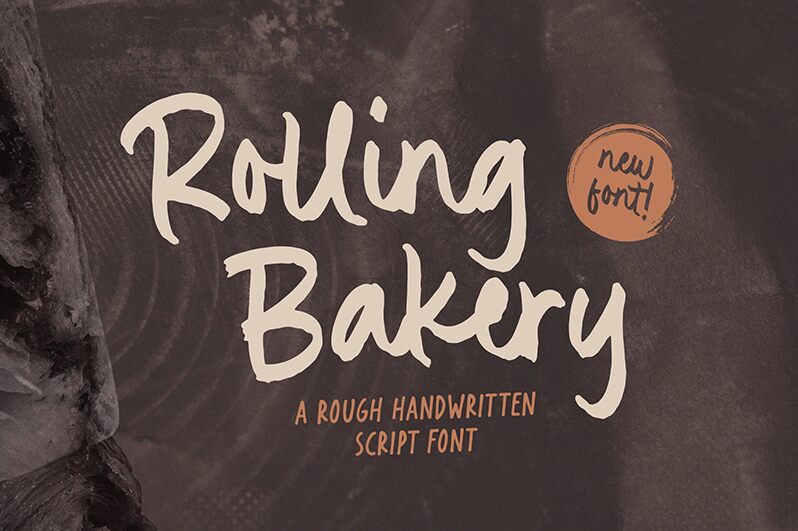
Rolling Bakery
Rolling Bakery font by Timur Type is a free brush font with a casual, handwritten style. Its energetic flow and expressive personality add an organic feel to designs. The modern appeal paired with abstract strokes and sloppy edges gives it a distinctive appearance, perfectly blending sophistication with a touch of individuality.
Rolling Bakery is ideal for attention-grabbing titles, logos, social media posts, ads, branding projects, packaging design, invitations, greeting cards, posters, headlines in magazines or newspapers. Its flexibility extends to websites and blogs where uniqueness is key.
Rolling Bakery Font also supports multiple languages.
- A full set of standard alphabet characters and punctuation.